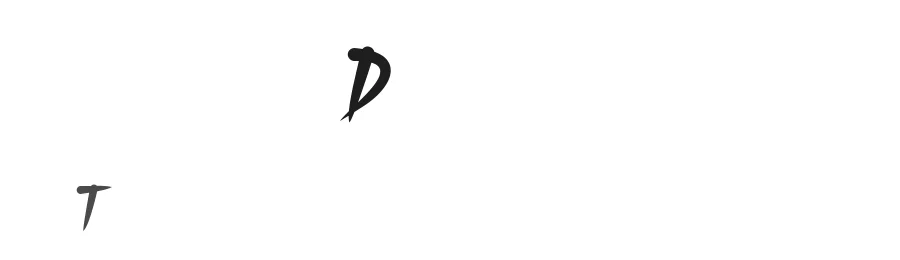
About Madjoe Font
Madjoe Specifications
| Font Family | Madjoe |
| Full Name | Madjoe |
| Glyph Count | 219 glyphs |
| PostScript Name | Madjoe |
| Designer | 160 Studio |
Madjoe ships with 1 OpenType feature you can switch on in apps that support them (Illustrator, InDesign, Affinity, Figma, CSS font-feature-settings).
Madjoe supports 209 languages.
Madjoe Font is a decorative font that shines as a display or heading face. Pair it with a clean sans-serif or serif font for body text β the contrast creates a clear hierarchy while the two styles stay balanced and easy to read.
Madjoe Font
by 160 Studio